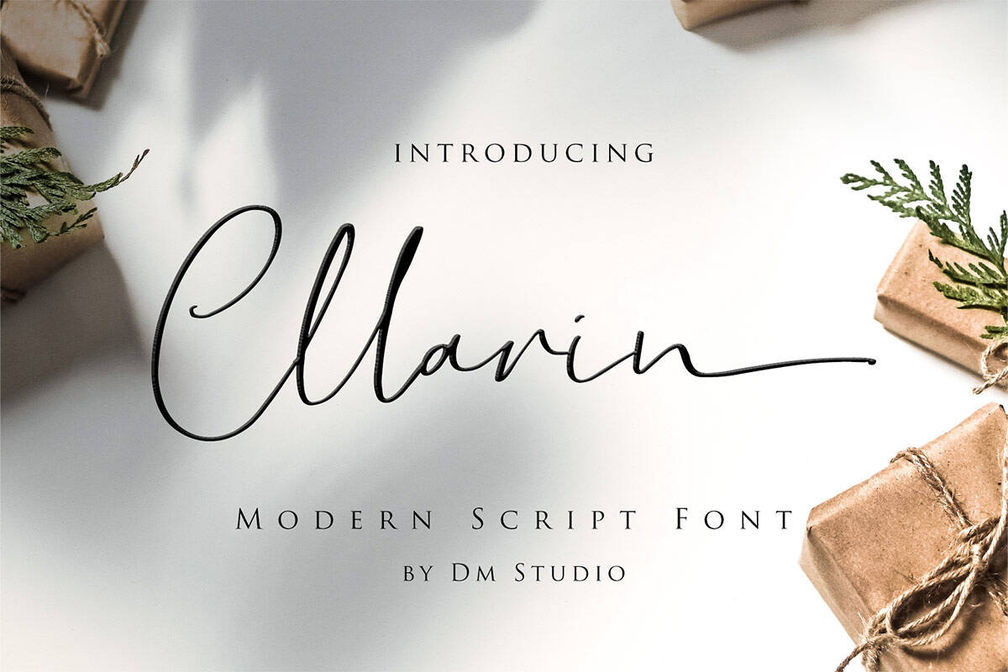
Cllarin – Modern Script Font
The Cllarin Modern Script Font is a sleek and contemporary typeface that embodies elegance and sophistication. With its fluid strokes and clean lines, this font adds a touch of modernity and style to your branding, invitations, advertisements, and other design projects.
1. Modern and Elegant Style: The Cllarin Font showcases a modern and refined aesthetic. Its smooth and flowing letterforms, combined with clean lines and balanced proportions, create an elegant and sophisticated look, making it perfect for projects that require a contemporary and stylish typography.
2. Versatile Application: This font is versatile and well-suited for various design projects that aim to exude a sense of elegance and professionalism. Use it in branding, wedding stationery, fashion magazines, corporate materials, and more to add a touch of modernity and sophistication to your designs.
3. Clean and Legible Design: The font’s carefully crafted strokes and letterforms ensure excellent legibility, even at smaller sizes. It maintains its clarity and readability, making it suitable for a wide range of applications, including both print and digital media.
4. Uppercase and Lowercase Letters: The font includes both uppercase and lowercase letters, providing flexibility and creative freedom in your designs. Mix and match the cases to create visually appealing and balanced typography.
5. Ligatures and Stylistic Alternates: The Cllarin Font offers a selection of ligatures and stylistic alternates that add variation and elegance to your text. These special characters create unique connections between letters and alternate forms, allowing you to create sophisticated and personalized typography.
6. Punctuation and Symbols: In addition to the alphabet, the Cllarin Font includes a comprehensive set of punctuation marks, numerals, and common symbols. This ensures consistency and ease of use when incorporating the font into your design projects.
Elevate your designs with the sleek and sophisticated Cllarin Modern Script Font. Let its clean lines and flowing letterforms add a touch of elegance and modernity to your branding, invitations, and designs. Embrace the contemporary beauty of this font and create designs that exude professionalism and style.